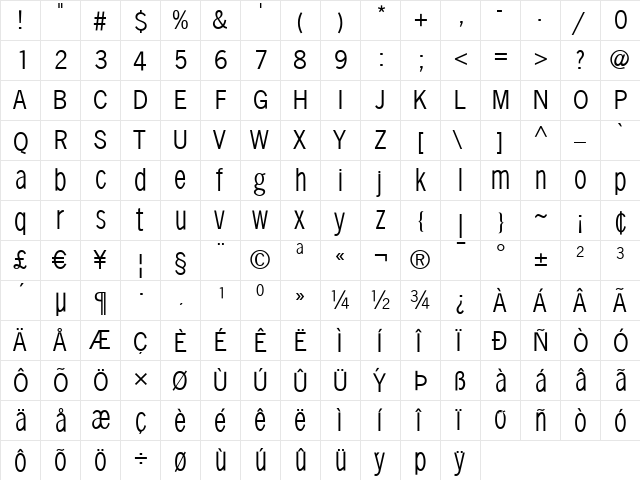
SansXHigh Regular
SansXHigh offers clean, dependable letterforms without strong stylistic allegiance, making it a practical choice for designers who need flexibility.